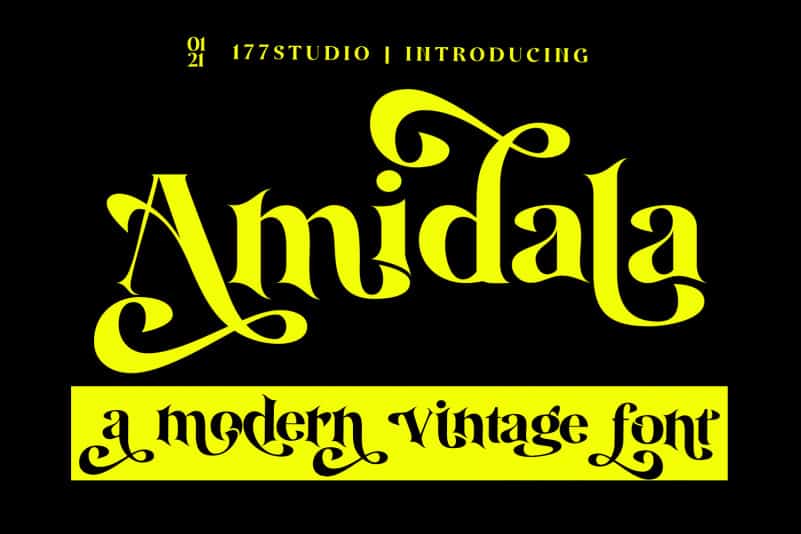
Amidala Font
Amidala Font is a stylish vintage, it’s a well-balanced contemporary font with a fancy, playful, unique, and versatile vintage serif font. It is a Bold Minimalist Elegant Modern vintage font with beautiful ligatures, tons of special alternative glyphs, ornament and multilingual support. It’s a very versatile font that works great in large and small sizes. Perfect for branding projects, Logo design, Clothing Branding, product packaging, magazine headers, or simply as a stylish text overlay to any background image.